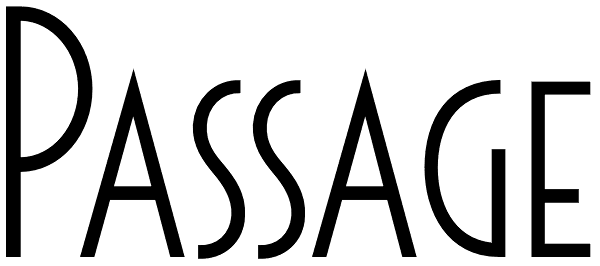
Passage
Passage is freshly looking decorative Art Deco font family, inspired with modern influences.
Passage Font
Passage Decor
Passage Decor Font
Passage Initials
Passage Initials Font
Passage Borders
Passage Borders Font